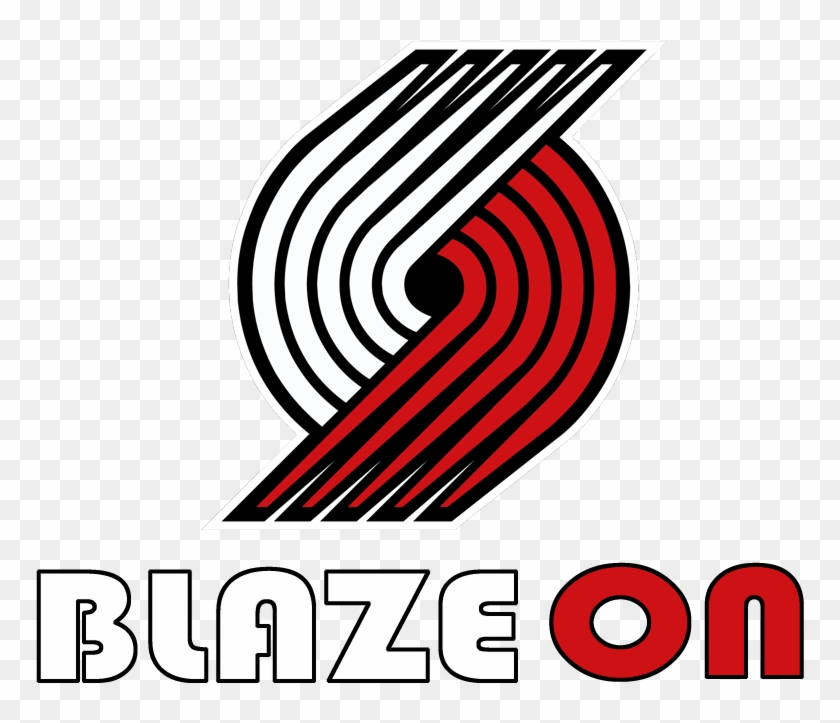
Trail Blazers Font
Trail Blazers Font - Timeless, powerful, a tad mysterious. Web font nba trailblazers regular belongs to the categories various. ️ this font has been downloaded 9,000+ times. Web font of the trail blazers alternate home jersey (rip city) suggested font. The number of glyphs (characters) of the font nba trailblazers. Bauhaus 93 suggested by wrathlenguaje2. Web download and install the nba trailblazers font for free from ffonts.net. You get the fiery and fierce spirit of the blazers,.
The number of glyphs (characters) of the font nba trailblazers. Web font of the trail blazers alternate home jersey (rip city) suggested font. Timeless, powerful, a tad mysterious. ️ this font has been downloaded 9,000+ times. Web font nba trailblazers regular belongs to the categories various. Web download and install the nba trailblazers font for free from ffonts.net. You get the fiery and fierce spirit of the blazers,. Bauhaus 93 suggested by wrathlenguaje2.
️ this font has been downloaded 9,000+ times. Web font nba trailblazers regular belongs to the categories various. Web font of the trail blazers alternate home jersey (rip city) suggested font. Timeless, powerful, a tad mysterious. The number of glyphs (characters) of the font nba trailblazers. Bauhaus 93 suggested by wrathlenguaje2. Web download and install the nba trailblazers font for free from ffonts.net. You get the fiery and fierce spirit of the blazers,.
Portland Trail Blazers Font Portland Trail Blazers 2006 2017 Wordmark
Web download and install the nba trailblazers font for free from ffonts.net. You get the fiery and fierce spirit of the blazers,. The number of glyphs (characters) of the font nba trailblazers. Web font of the trail blazers alternate home jersey (rip city) suggested font. Web font nba trailblazers regular belongs to the categories various.
️ this font has been downloaded 9,000+ times. Bauhaus 93 suggested by wrathlenguaje2. Timeless, powerful, a tad mysterious. You get the fiery and fierce spirit of the blazers,. Web download and install the nba trailblazers font for free from ffonts.net.
Portland Trail Blazers Logo Font Download fonts
Web font nba trailblazers regular belongs to the categories various. The number of glyphs (characters) of the font nba trailblazers. Web font of the trail blazers alternate home jersey (rip city) suggested font. Timeless, powerful, a tad mysterious. Web download and install the nba trailblazers font for free from ffonts.net.
Trail Blazers unveil their new logo Trail blazers, ? logo, Blazer
Timeless, powerful, a tad mysterious. Web download and install the nba trailblazers font for free from ffonts.net. You get the fiery and fierce spirit of the blazers,. Web font nba trailblazers regular belongs to the categories various. The number of glyphs (characters) of the font nba trailblazers.
NBA Trailblazers free Font What Font Is
Bauhaus 93 suggested by wrathlenguaje2. ️ this font has been downloaded 9,000+ times. Web font of the trail blazers alternate home jersey (rip city) suggested font. The number of glyphs (characters) of the font nba trailblazers. Web download and install the nba trailblazers font for free from ffonts.net.
PORTLAND TRAIL BLAZERS BRANDING on Behance
The number of glyphs (characters) of the font nba trailblazers. Timeless, powerful, a tad mysterious. Web download and install the nba trailblazers font for free from ffonts.net. You get the fiery and fierce spirit of the blazers,. Web font nba trailblazers regular belongs to the categories various.
Portland Trail Blazers Font Portland Trail Blazers 2006 2017 Wordmark
You get the fiery and fierce spirit of the blazers,. Web download and install the nba trailblazers font for free from ffonts.net. ️ this font has been downloaded 9,000+ times. Web font of the trail blazers alternate home jersey (rip city) suggested font. Timeless, powerful, a tad mysterious.
PORTLAND TRAIL BLAZERS BRANDING on Behance
️ this font has been downloaded 9,000+ times. You get the fiery and fierce spirit of the blazers,. Web download and install the nba trailblazers font for free from ffonts.net. Bauhaus 93 suggested by wrathlenguaje2. The number of glyphs (characters) of the font nba trailblazers.
NBA Trailblazers Font Download (Portland Trail Blazers Font) Fonts4Free
Web font of the trail blazers alternate home jersey (rip city) suggested font. The number of glyphs (characters) of the font nba trailblazers. Web download and install the nba trailblazers font for free from ffonts.net. ️ this font has been downloaded 9,000+ times. Web font nba trailblazers regular belongs to the categories various.
Portland Trail Blazers new logo & script font (2017 Portland
The number of glyphs (characters) of the font nba trailblazers. You get the fiery and fierce spirit of the blazers,. ️ this font has been downloaded 9,000+ times. Web font of the trail blazers alternate home jersey (rip city) suggested font. Web font nba trailblazers regular belongs to the categories various.
Bauhaus 93 suggested by wrathlenguaje2. Timeless, powerful, a tad mysterious. ️ this font has been downloaded 9,000+ times. Web font nba trailblazers regular belongs to the categories various.
The Number Of Glyphs (Characters) Of The Font Nba Trailblazers.
You get the fiery and fierce spirit of the blazers,. Web font of the trail blazers alternate home jersey (rip city) suggested font.